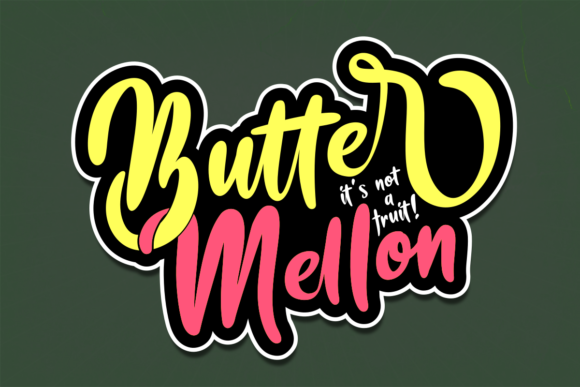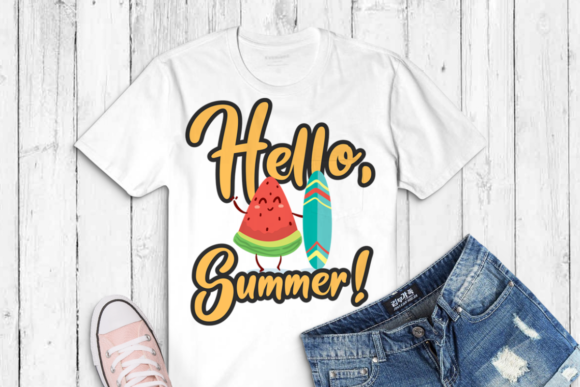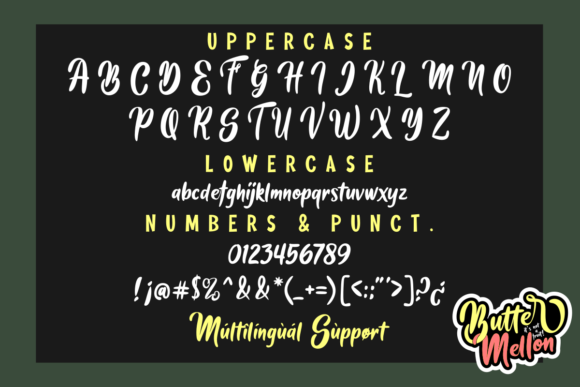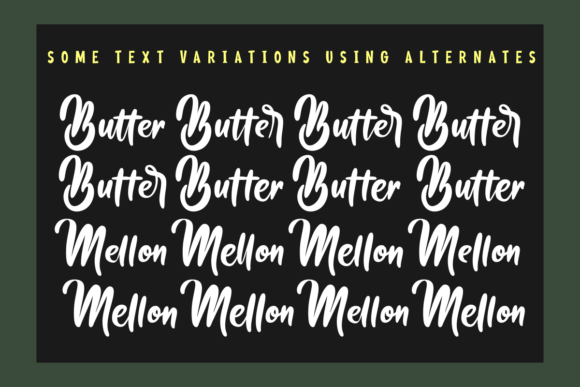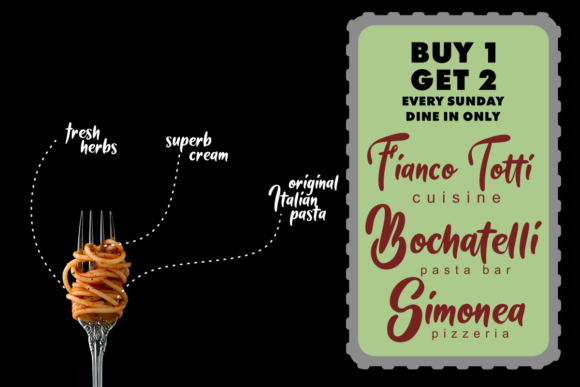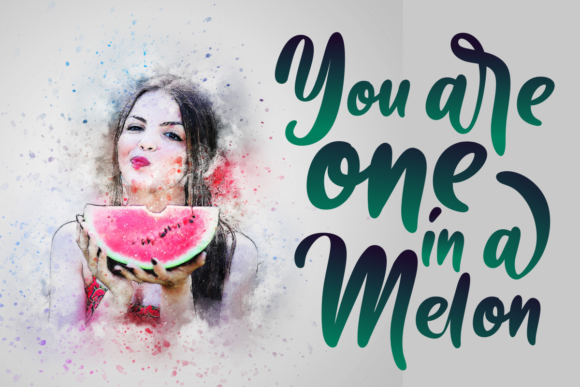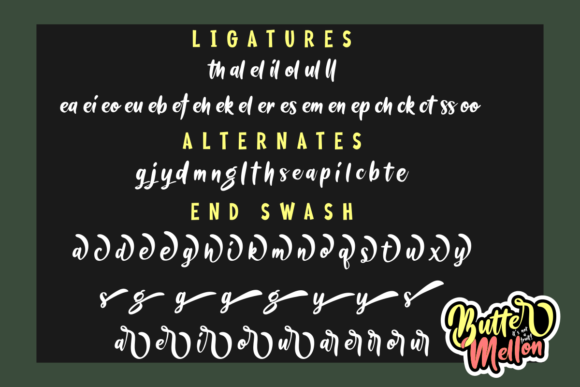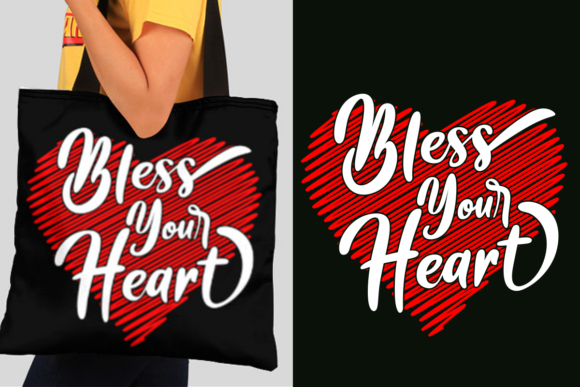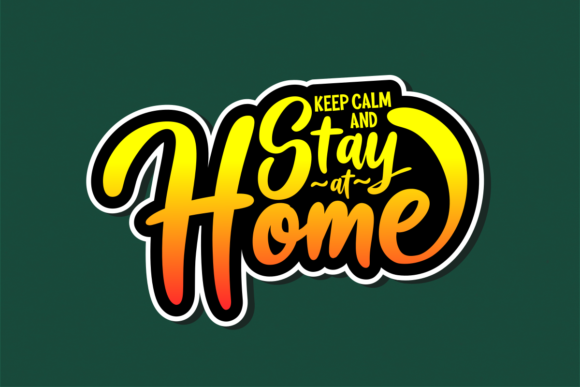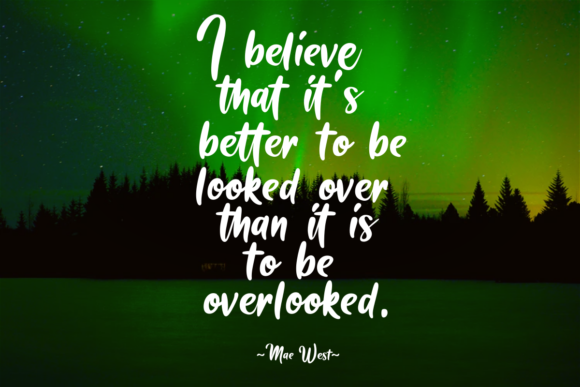
Butter Mellon Font
About Butter Mellon Font
Butter Mellon is a quirky and playful handwritten font. Use it to add that special retro touch to any design idea you can think of!